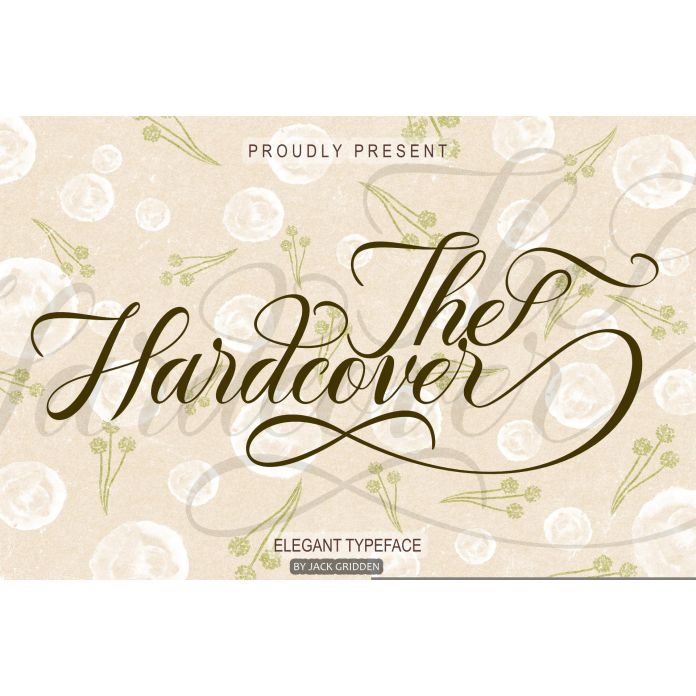
The Hardcover is a delicate, elegant, and flowing handwritten font. It has beautiful and well-balanced characters, and as a result, it matches a wide pool of designs.